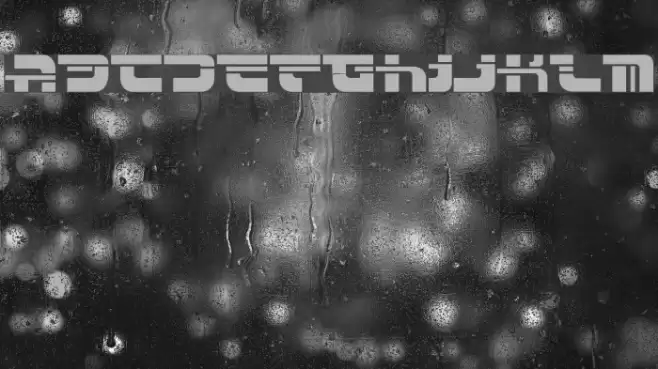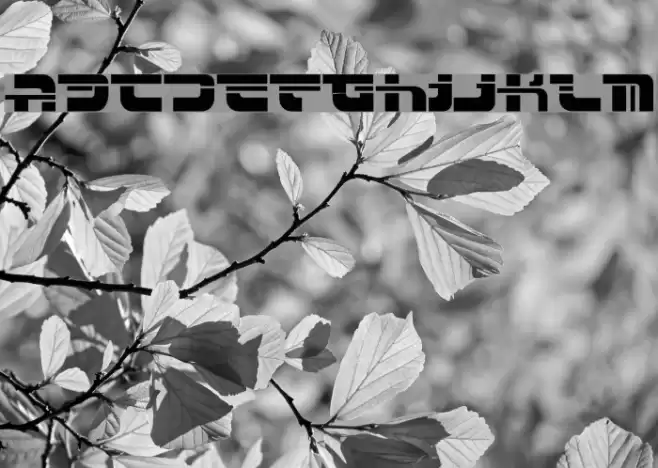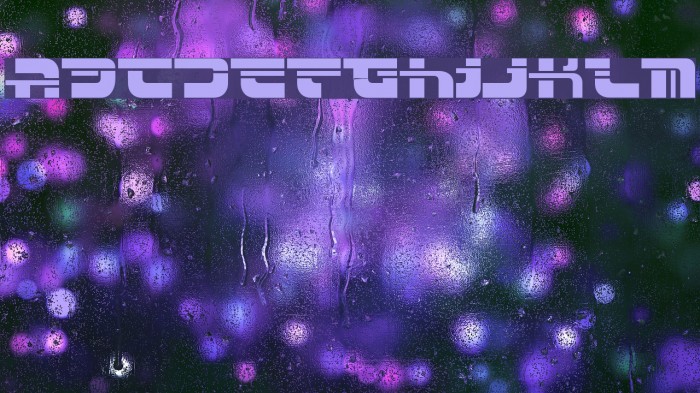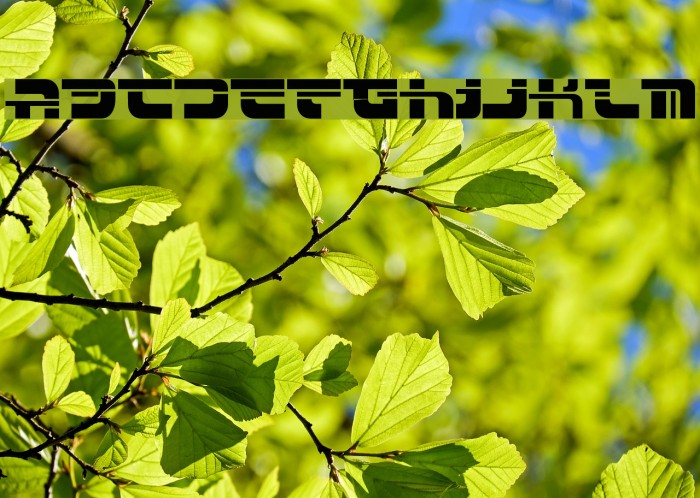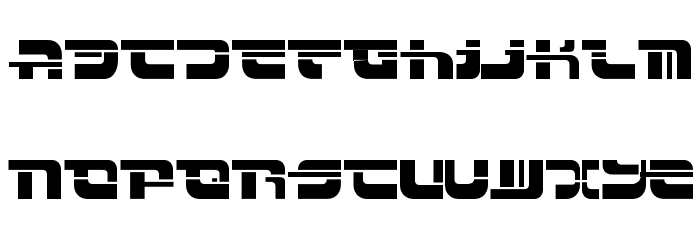
This font features a futuristic and geometric design, characterized by bold, block-like letters with sharp angles and clean lines. The uppercase letters are distinct with their unique cut-out sections, giving them a modern and tech-inspired appearance. The font maintains a consistent thickness throughout, contributing to its strong visual impact. The lowercase letters mirror the uppercase style, ensuring uniformity and coherence. This font is ideal for projects that require a contemporary and edgy look, such as technology branding, sci-fi themed designs, or modern advertising.
A futuristic, geometric font with bold, angular letters and a tech-inspired style.
- Proposed Projects: Ideal for technology branding, sci-fi themed designs, modern advertising, and digital media.